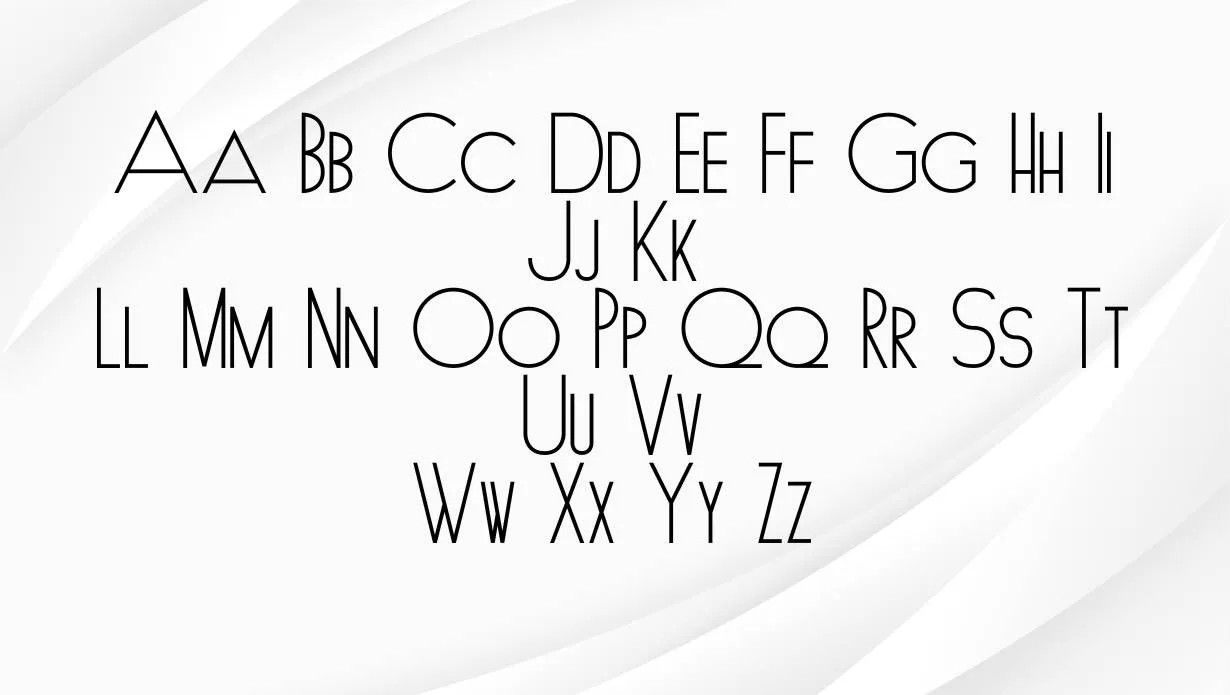
The Raja Drama font brings a bold and ornate aesthetic, often embraced in expressive designs or theatrical contexts. It creates striking titles or logos in software like Photoshop.
| Name | Raja Drama Font |
| Designer | cenz qobbal |
| Style | Techno |